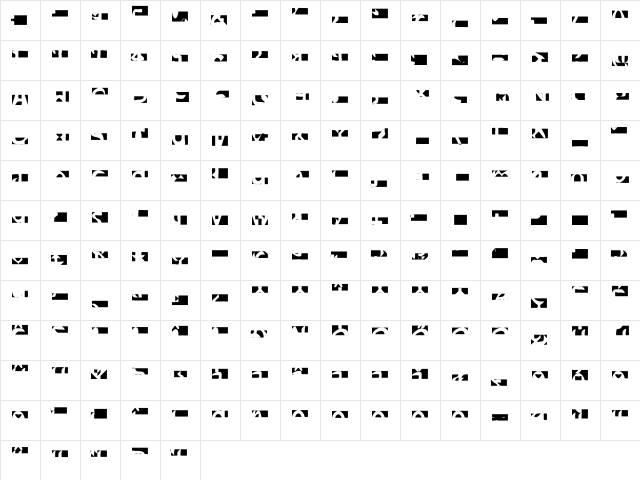
FPeep ScrewedUp
Design Context for FPeep Typeface
FPeep is a composed and adaptable typeface that performs quietly and consistently across a wide range of design contexts.
Pro Tip: Pair FPeep with a font of contrasting weight or personality to build a more expressive typographic hierarchy.